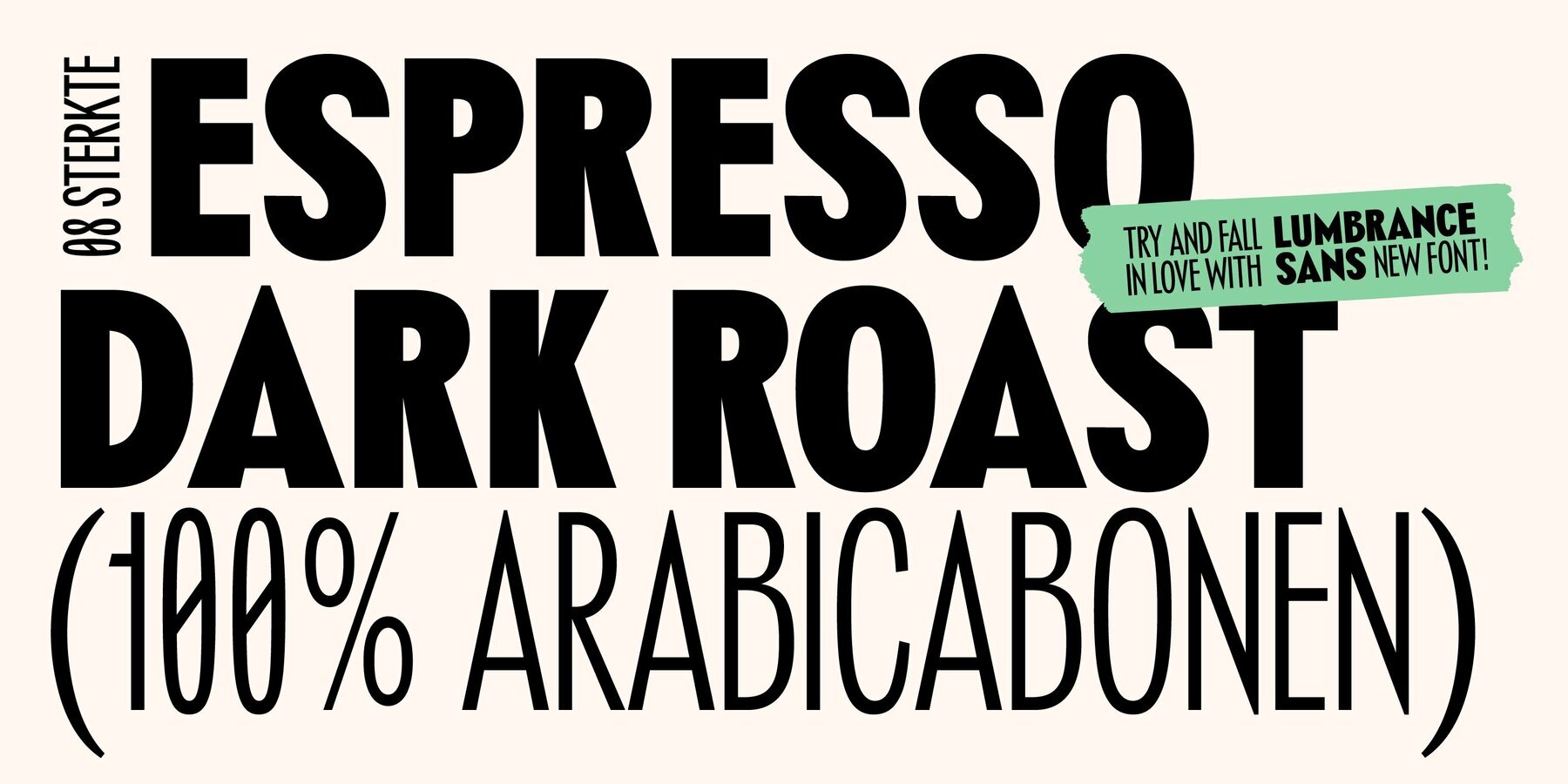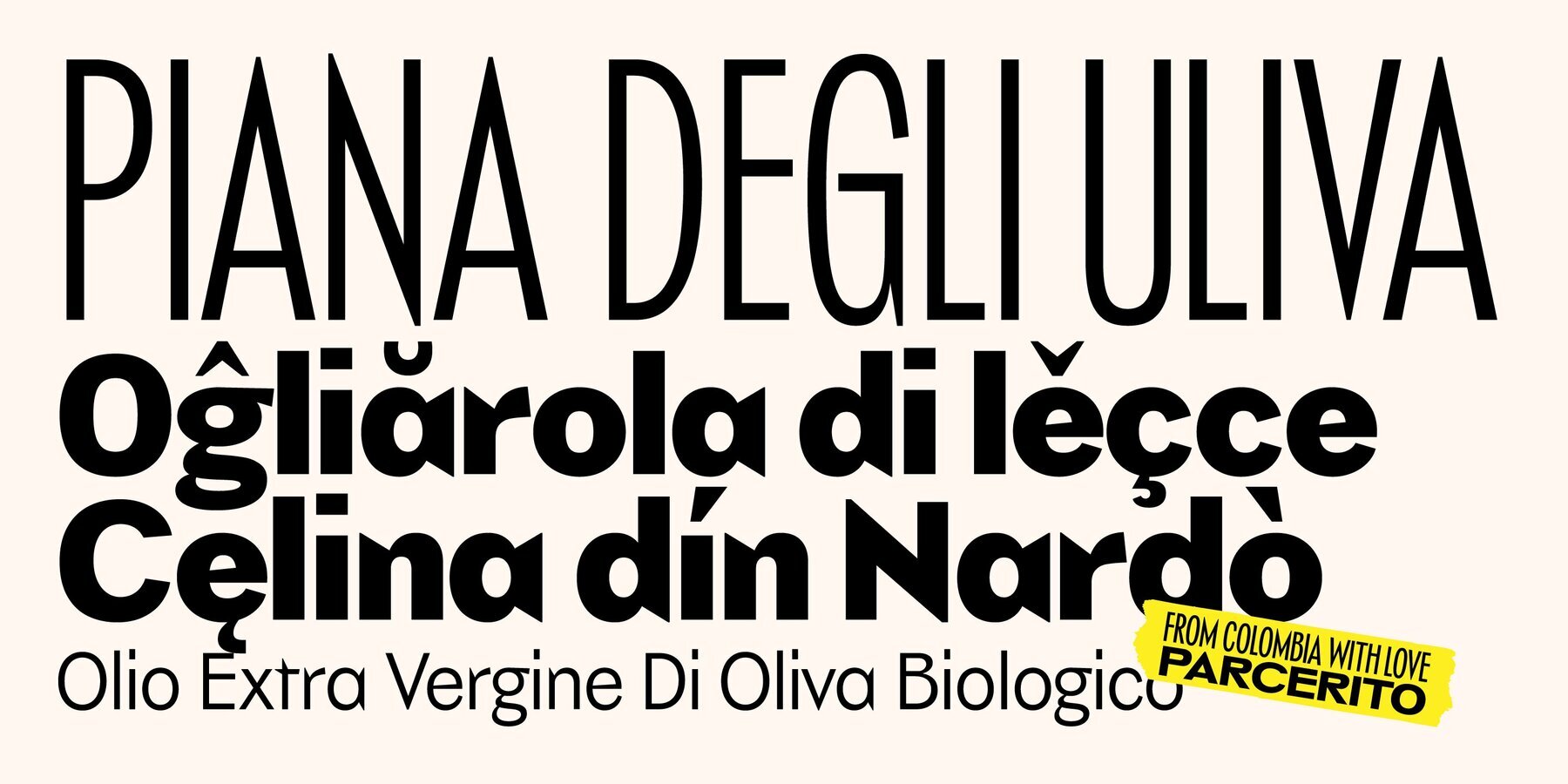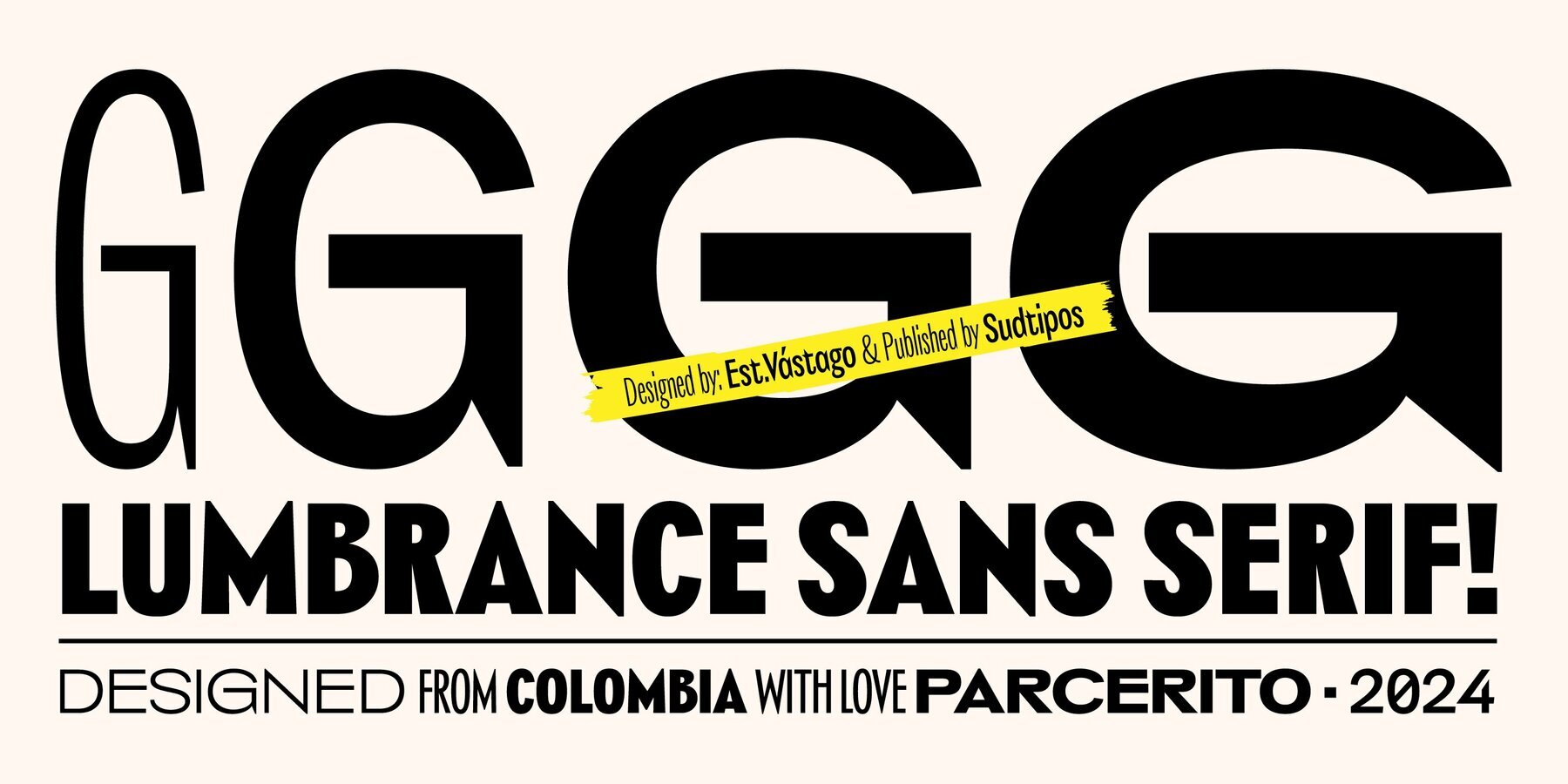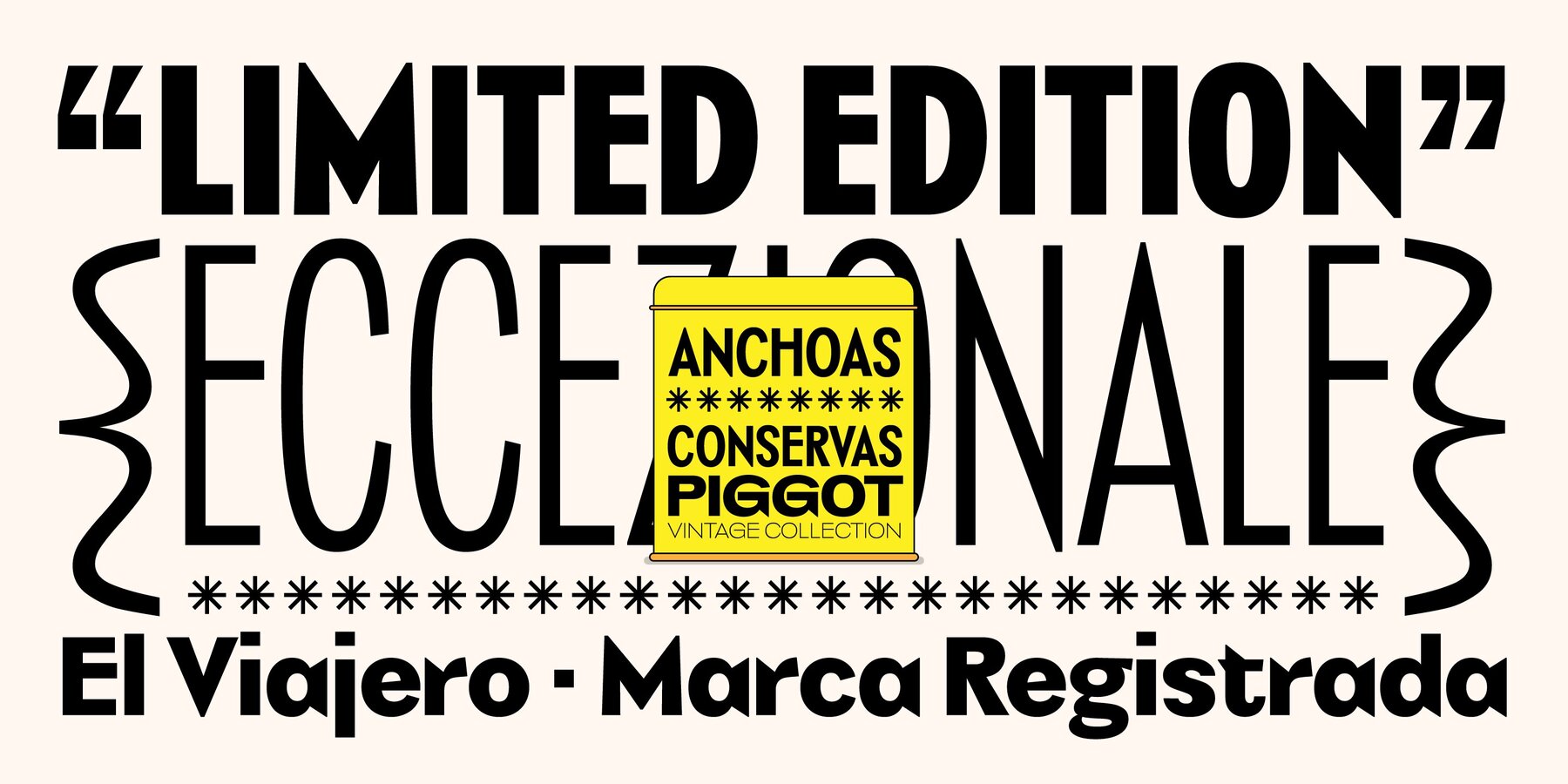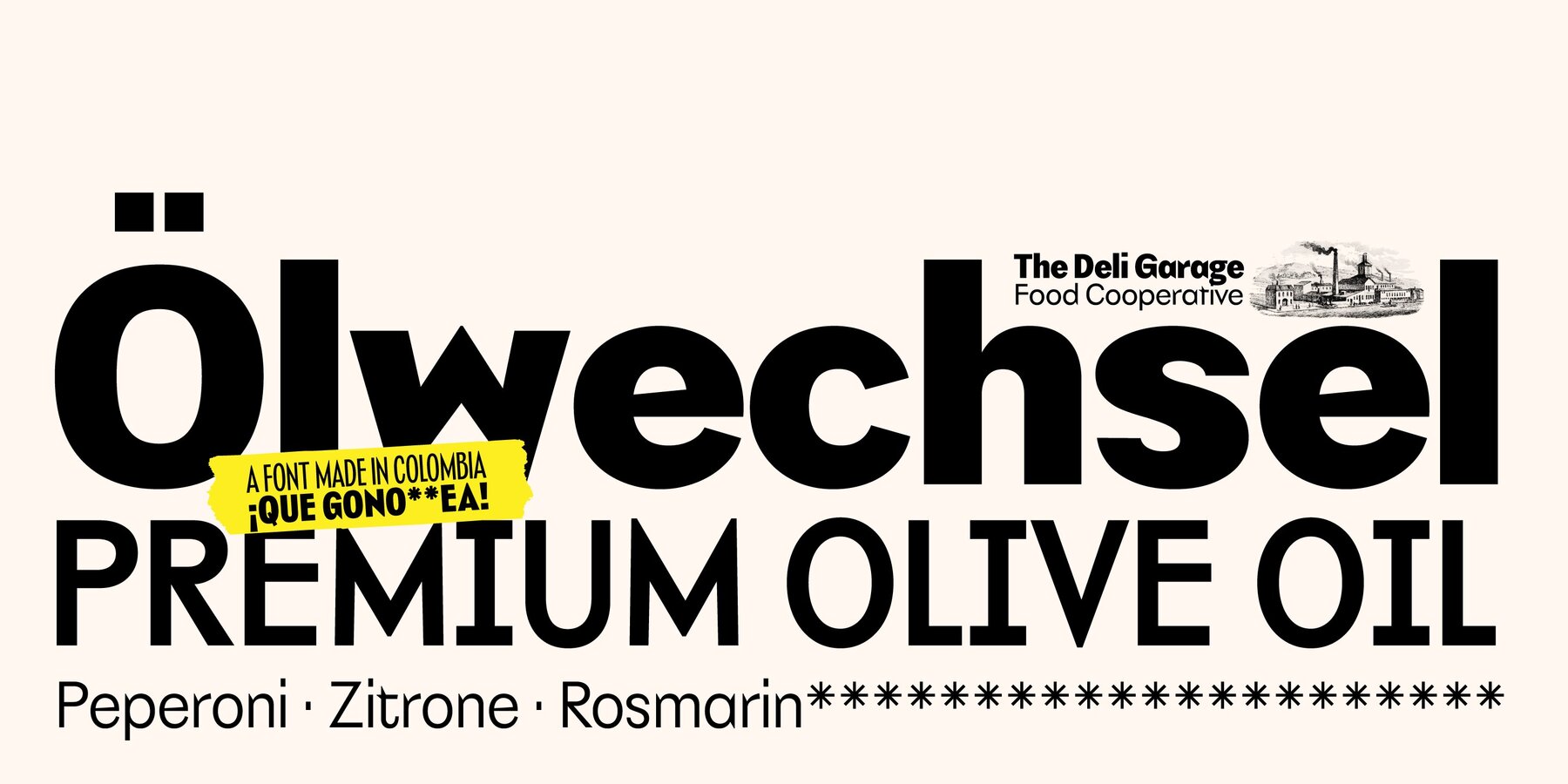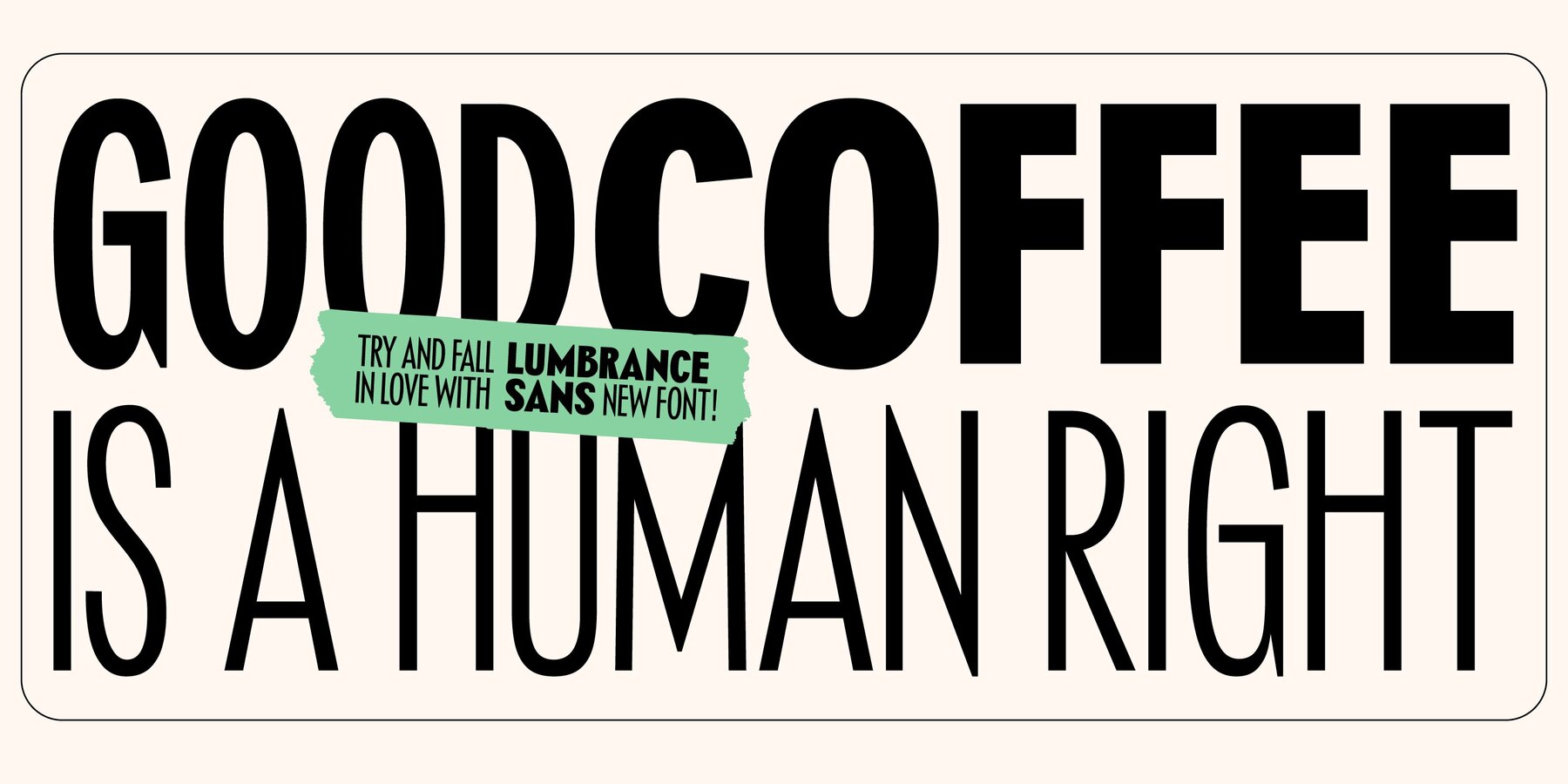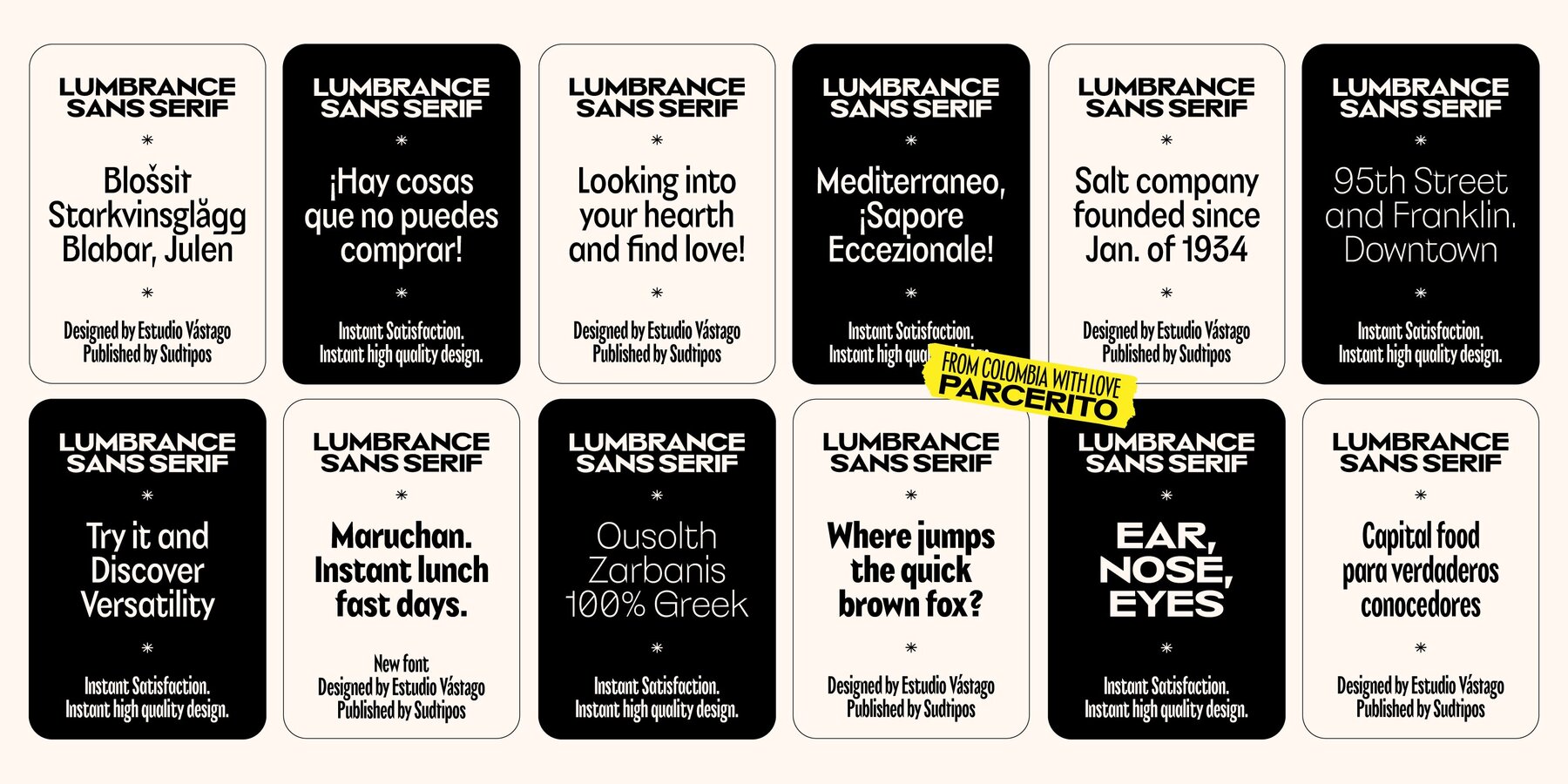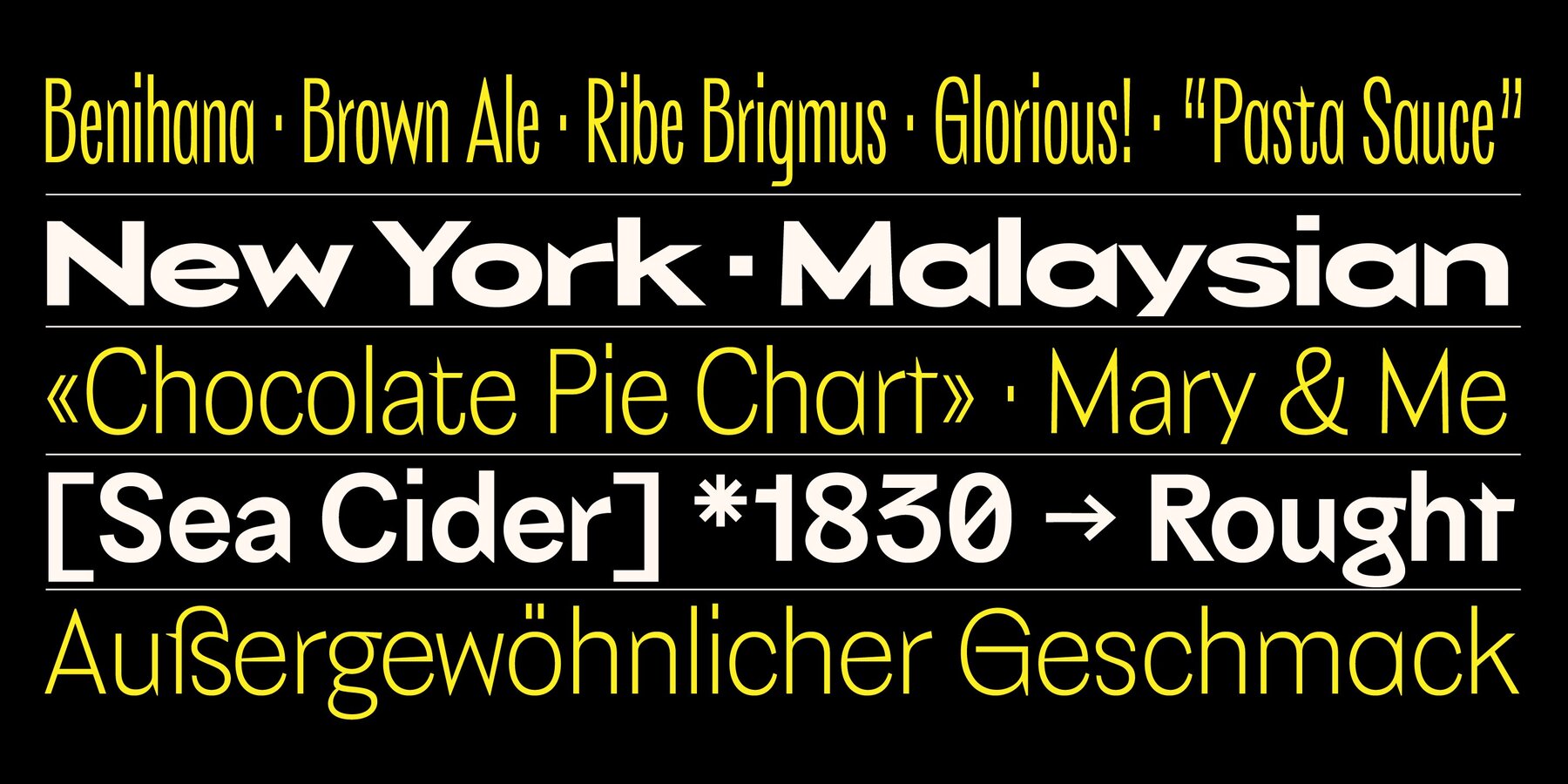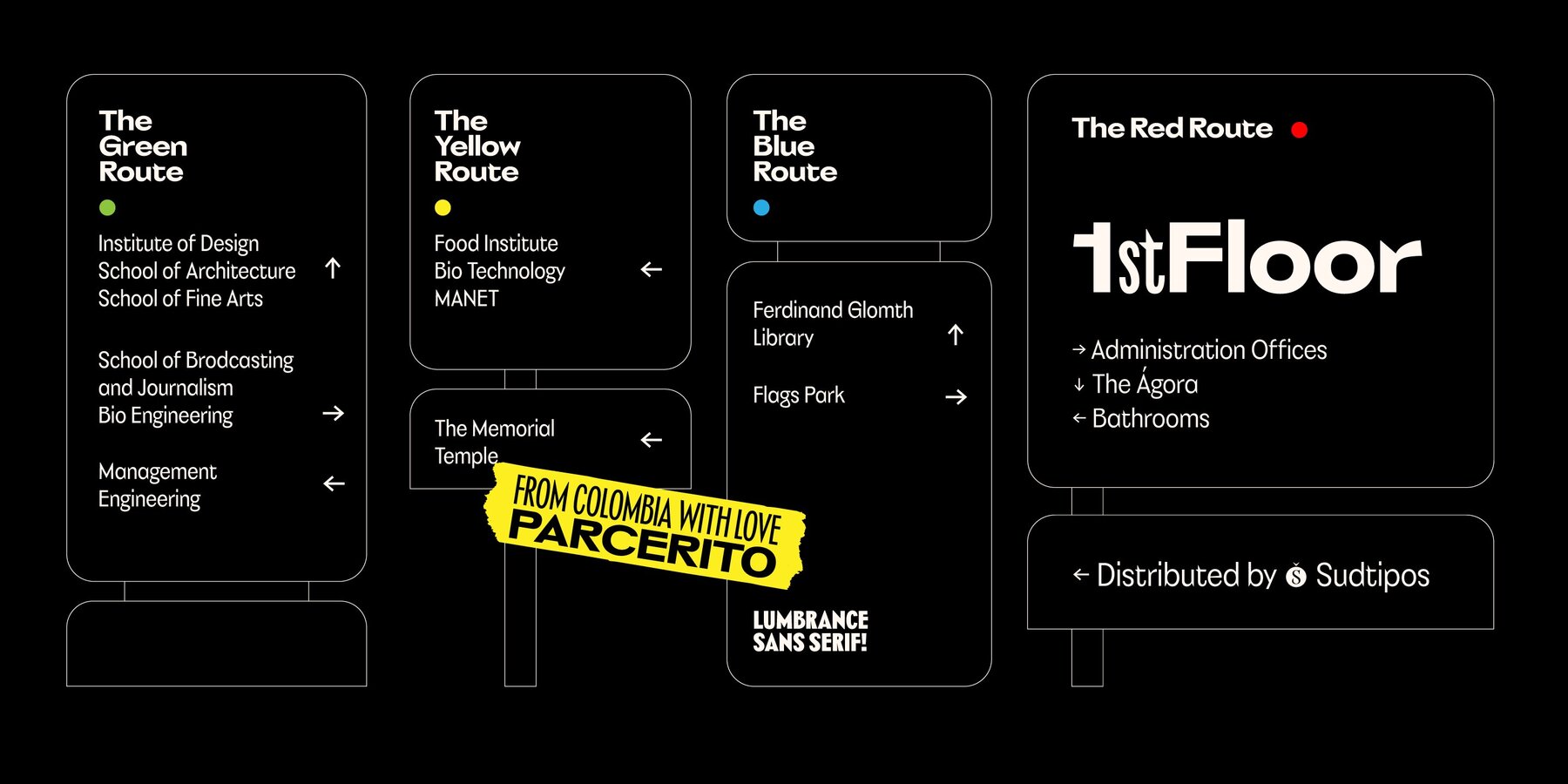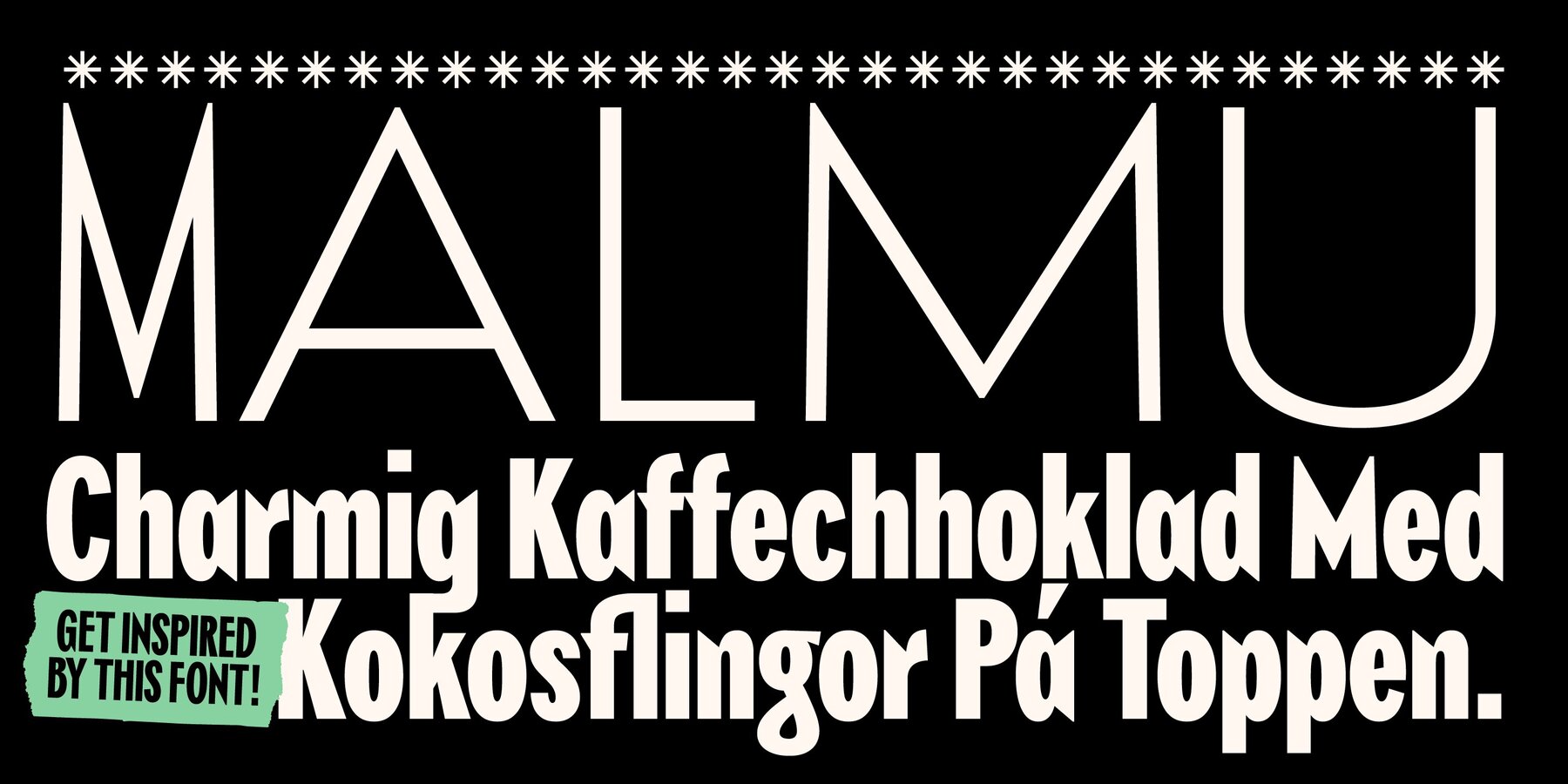
Lumbrance Sans Font
Lumbrance Sans is a typeface that reflects our deep connection with typographic design. This font not only carries characters but also expresses much more through its carefully considered details. We have incorporated distinctive elements such as pronounced corners and slightly elevated horizontal strokes, blending irreverence with formality and simplicity. The result is a typeface that combines personality and balance between traditional and contemporary styles. Lumbrance Sans is ideal for those seeking a font with character while maintaining visual harmony. Its variable design invites playful compositions, rediscovering spaces and making each use a true serendipity. With a range of weights as diverse as human emotions, Lumbrance Sans stands out for its versatility. Supported by the distribution and technical expertise of Sudtipos, we are proud to launch Lumbrance Sans to the world. Here it is, ready to become an essential part of your typographic gallery. Enjoy Lumbrance Sans and let it illuminate your creative projects.